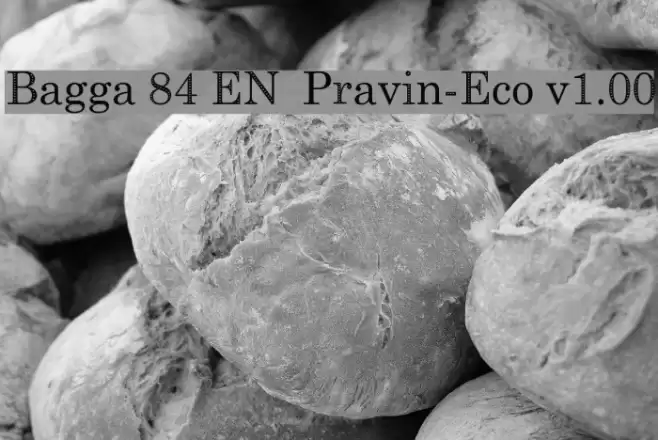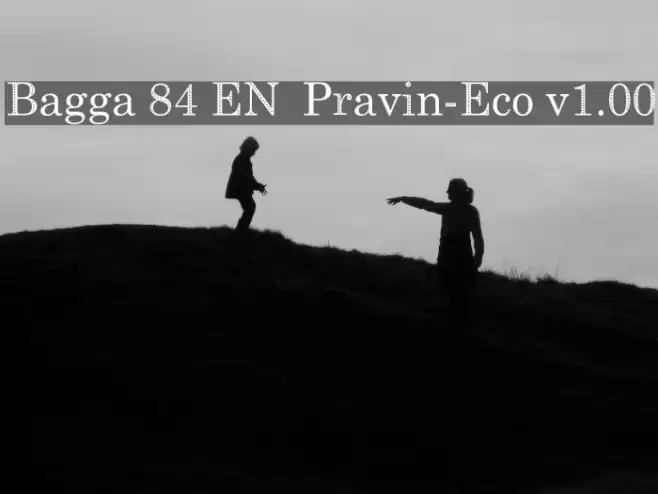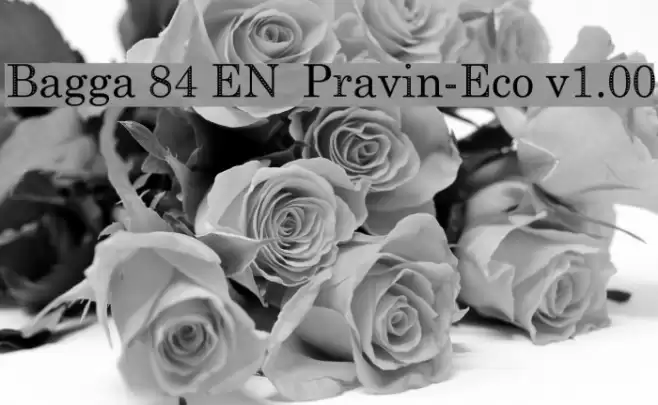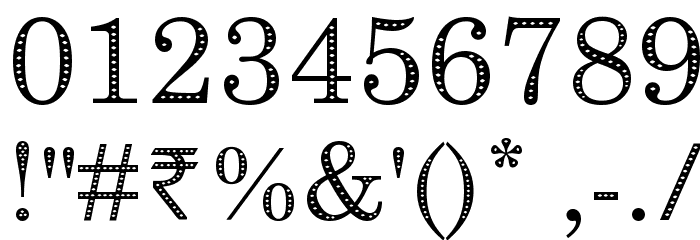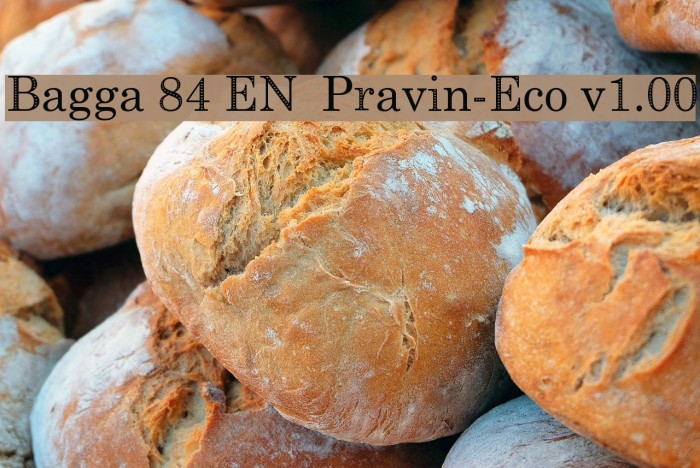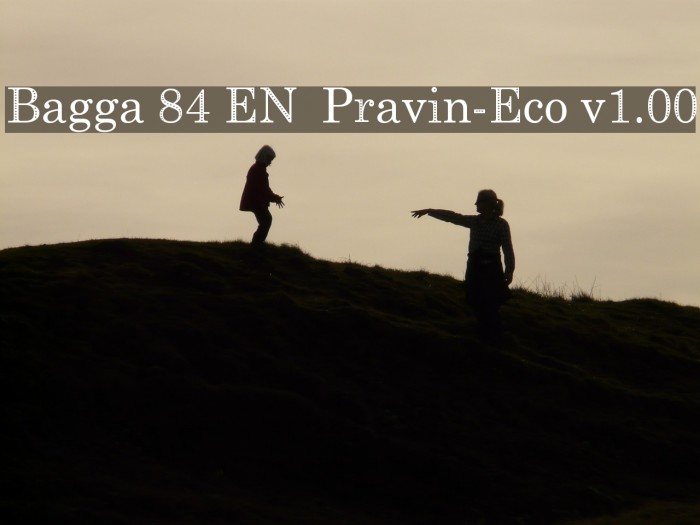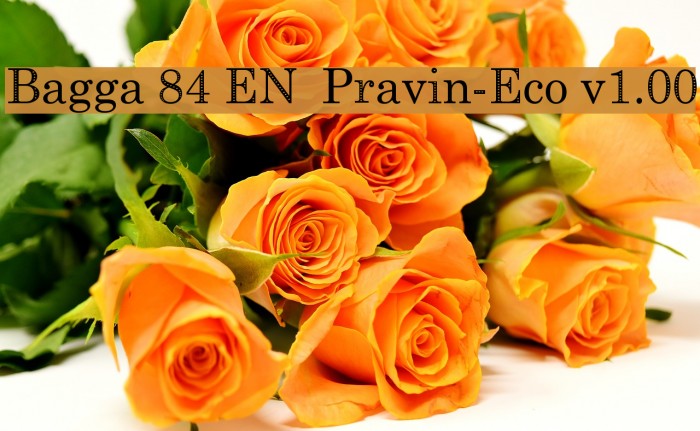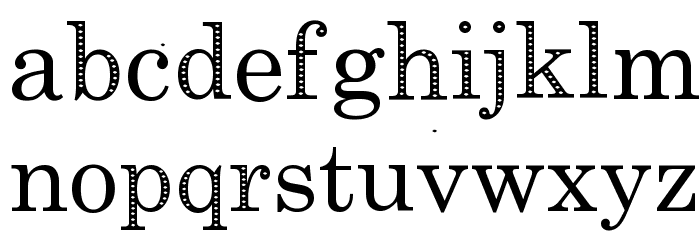
Bagga 84 EN Pravin-Eco v1.00 Font
Bagga 84 EN Pravin-Eco v1.00 Description
This font features a decorative style with a unique dotted pattern inside each character, giving it a playful yet sophisticated look. The uppercase and lowercase letters maintain a consistent design, with the dots adding a sense of whimsy and creativity. The numerals and special characters follow the same pattern, ensuring a cohesive appearance across all glyphs. The font's structure is clean and legible, making it suitable for various design applications where a touch of elegance and fun is desired.
A decorative font with dotted patterns inside each character, offering a playful and elegant style from Uncategorized fonts.
- Proposed Projects: Ideal for use in creative projects such as invitations, posters, branding, and packaging where a unique and eye-catching font is needed.